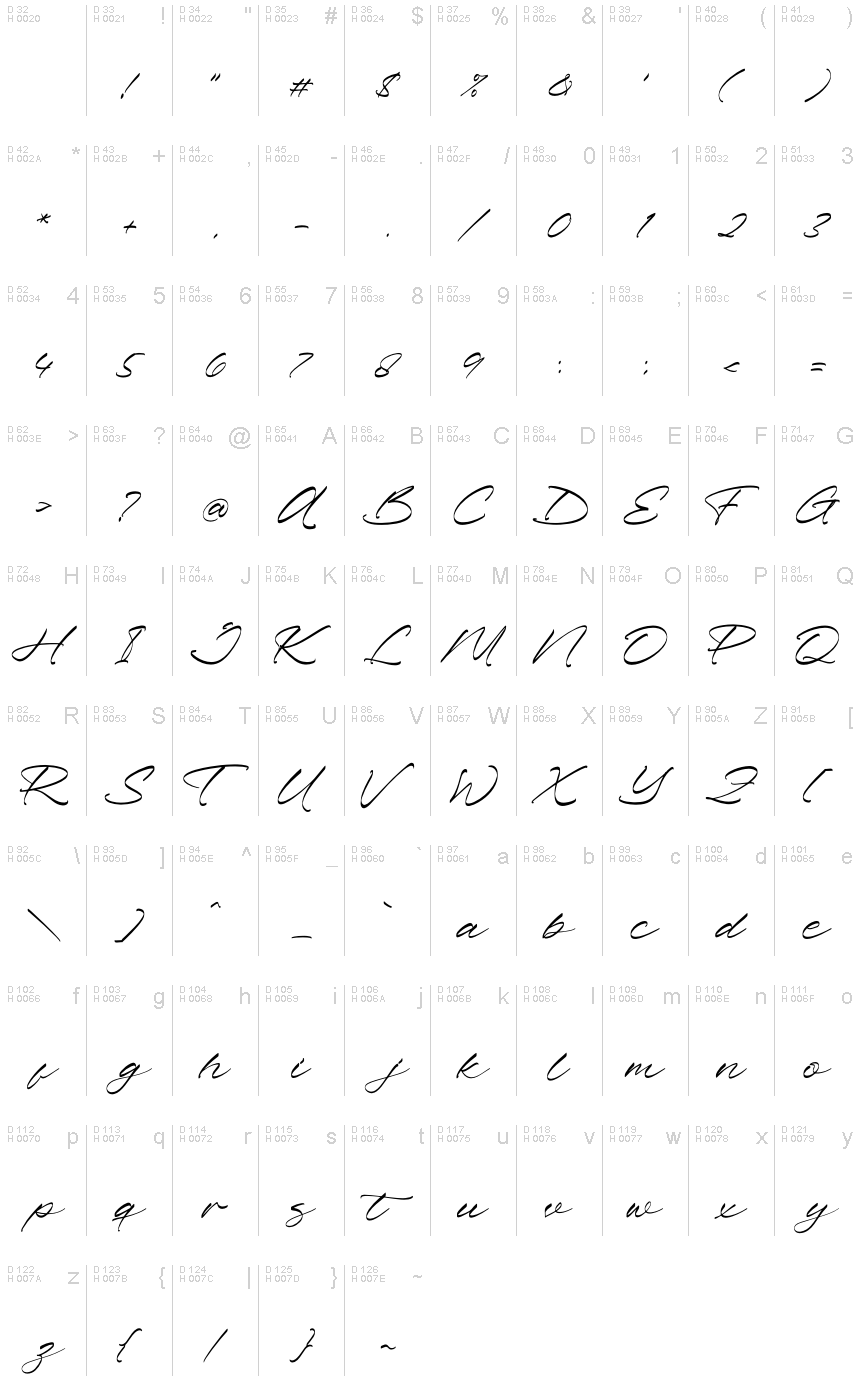
Pharellia Redusha
Pharellia Redusha font by Storytype Studio is a stunning handwritten masterpiece. With its light weight and expanded width, this font exudes an airy elegance that captures attention effortlessly. The graceful flow of the characters, reminiscent of sophisticated script writing, makes it ideal for adding a personal touch to invitations, branding materials, and lifestyle blog headers.
Its aesthetic appeal lies in the subtle balance between modern flair and classic charm, making Pharellia Redusha versatile across various design needs. Whether you're looking to enhance digital content or print designs, this free font download offers flexibility without compromising on style.
Explore creative possibilities with Pharellia Redusha font and let your projects shine with its unique handwriting allure. Perfect for designers seeking to infuse their work with character and warmth.